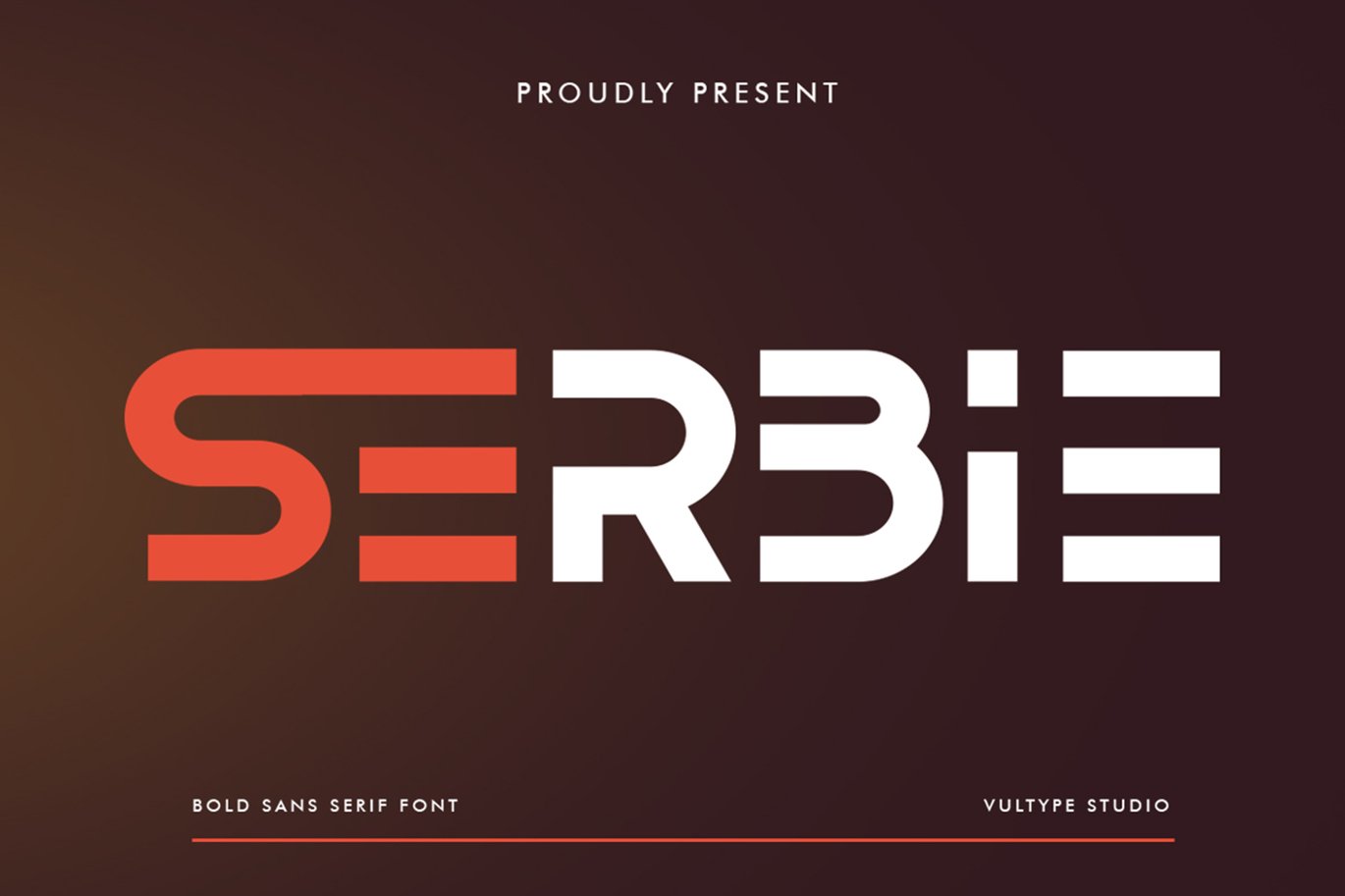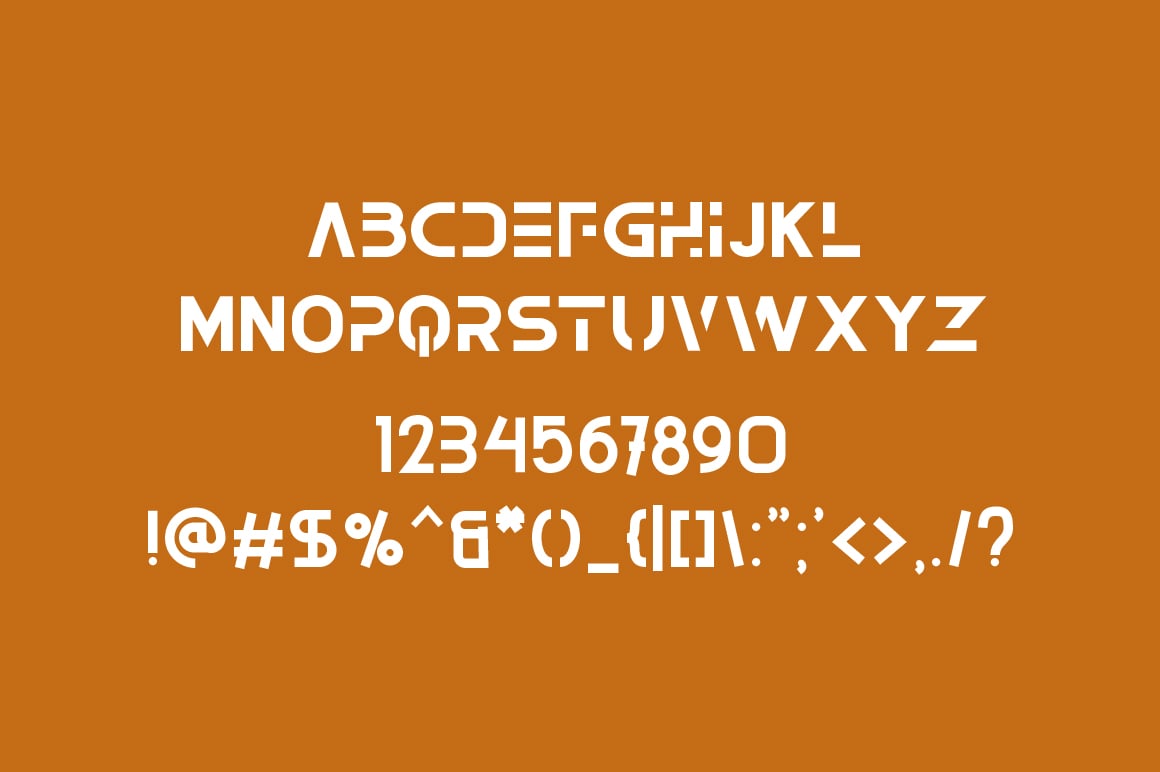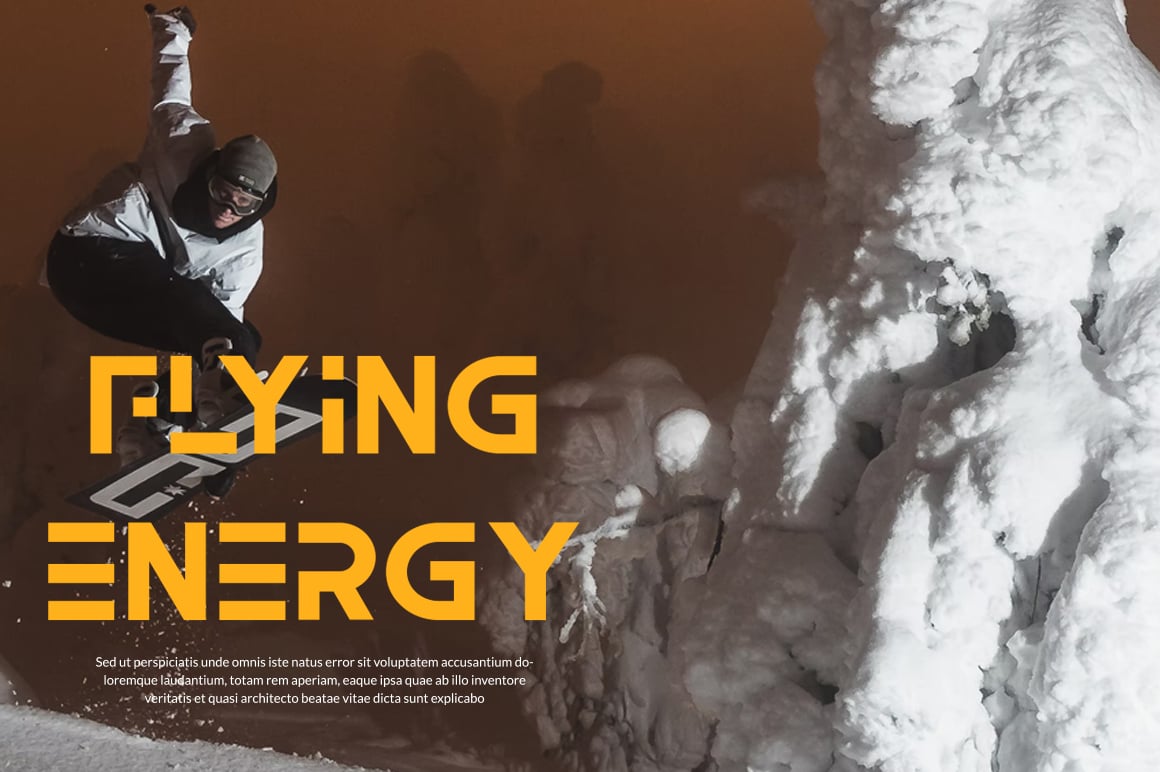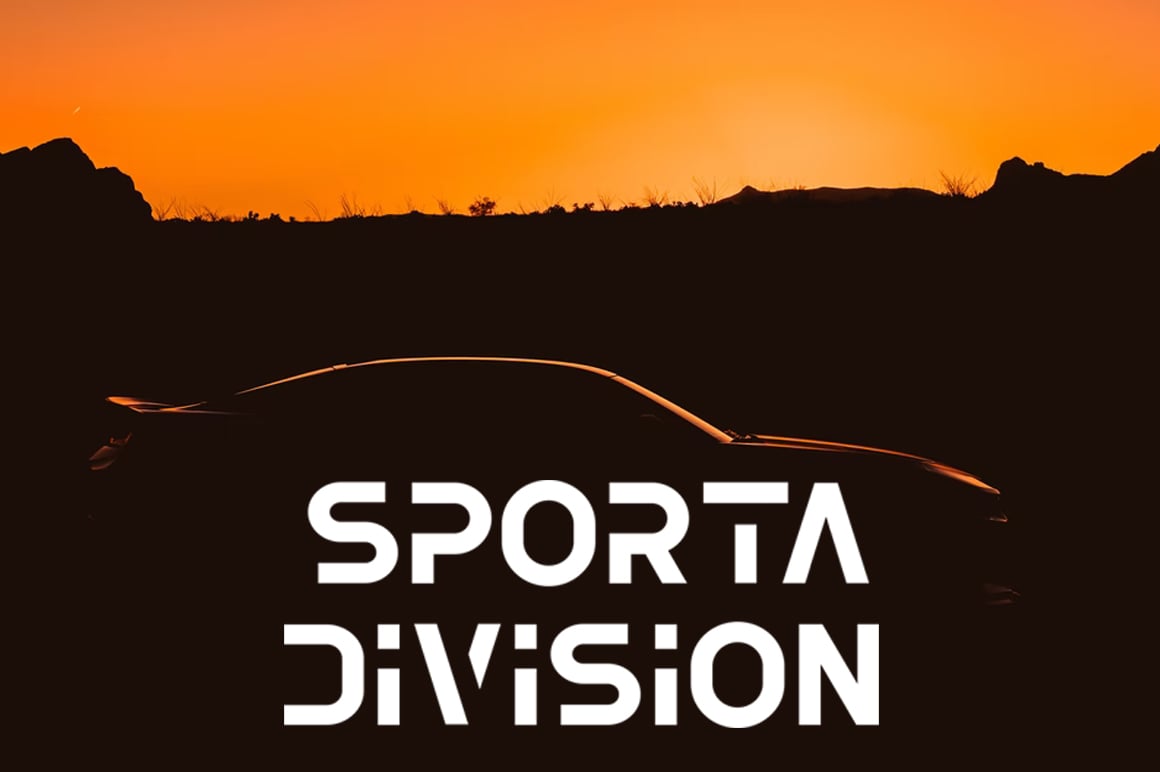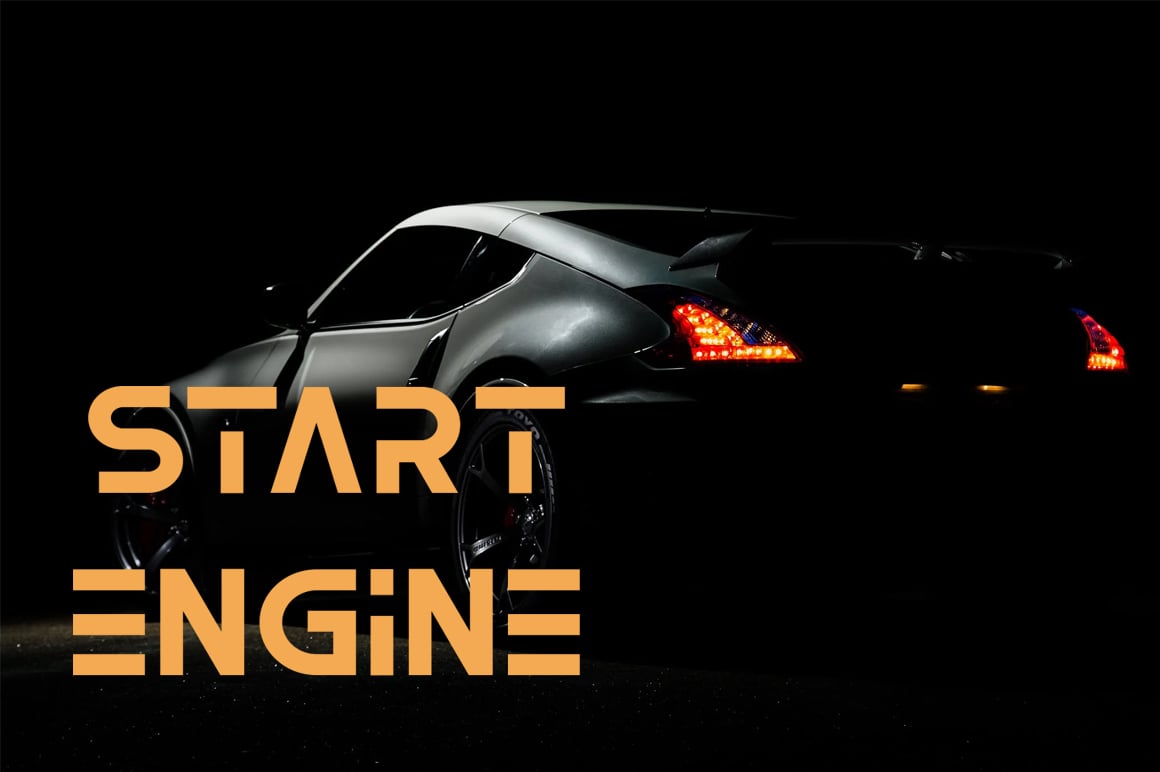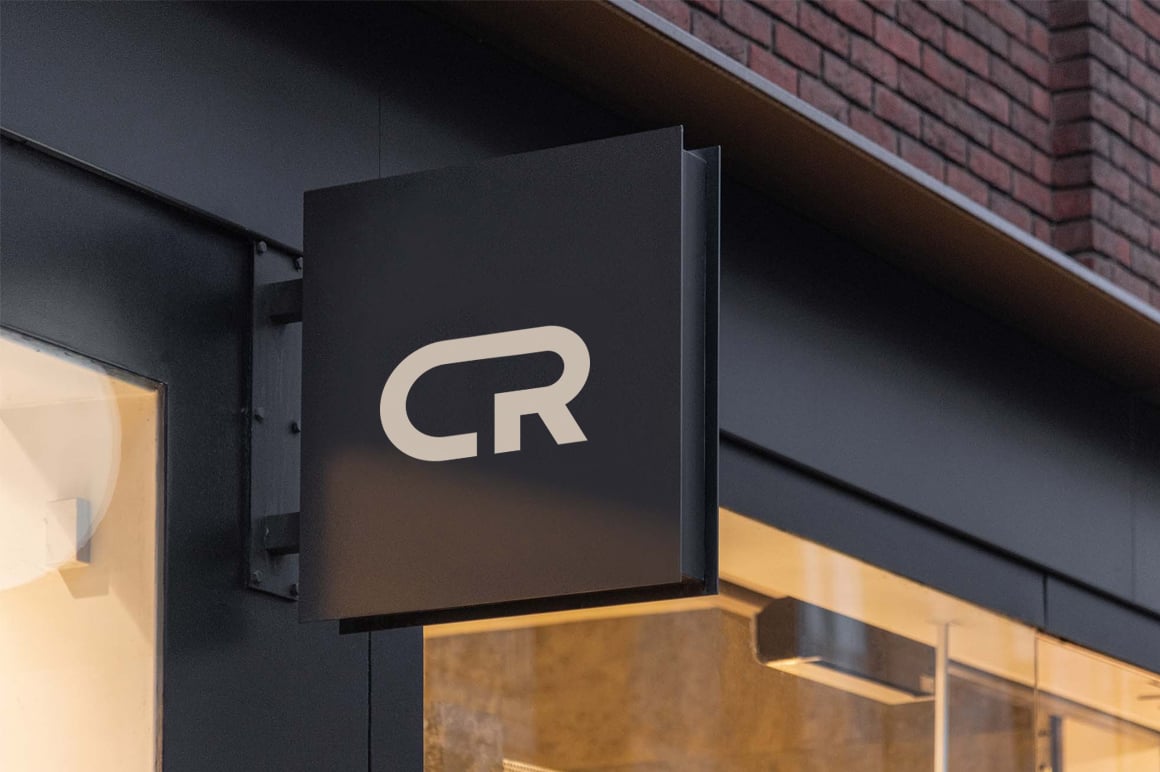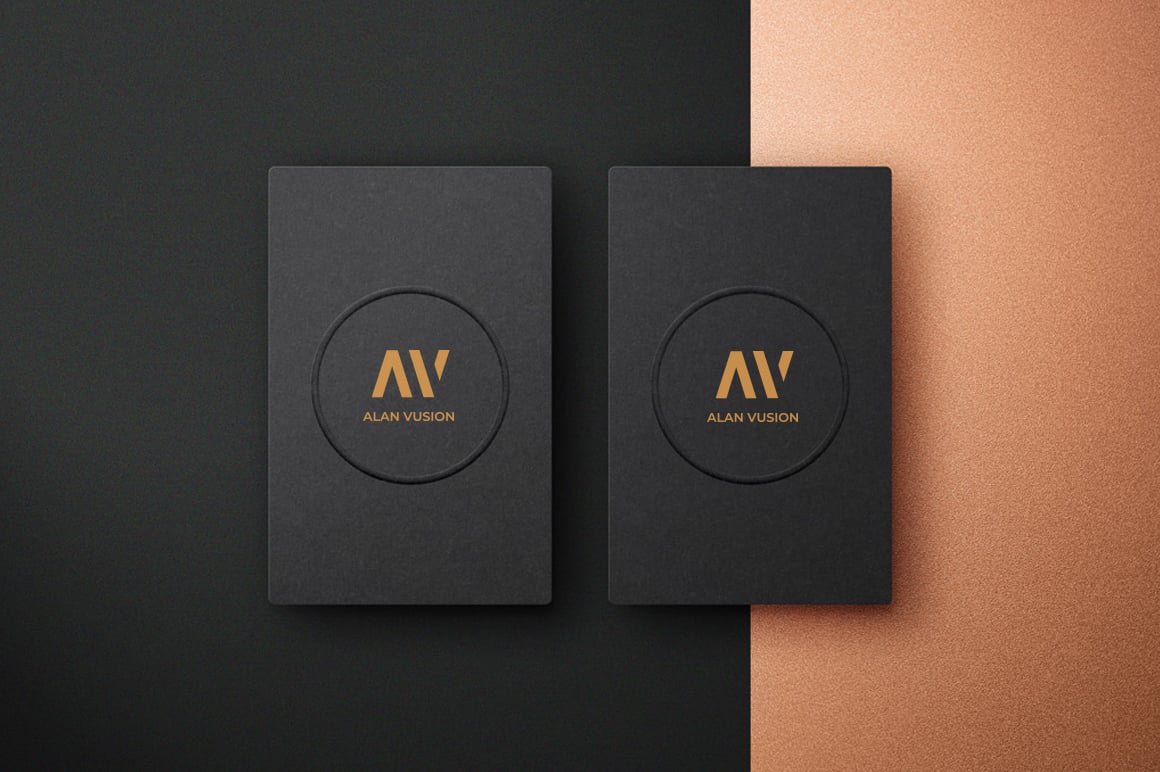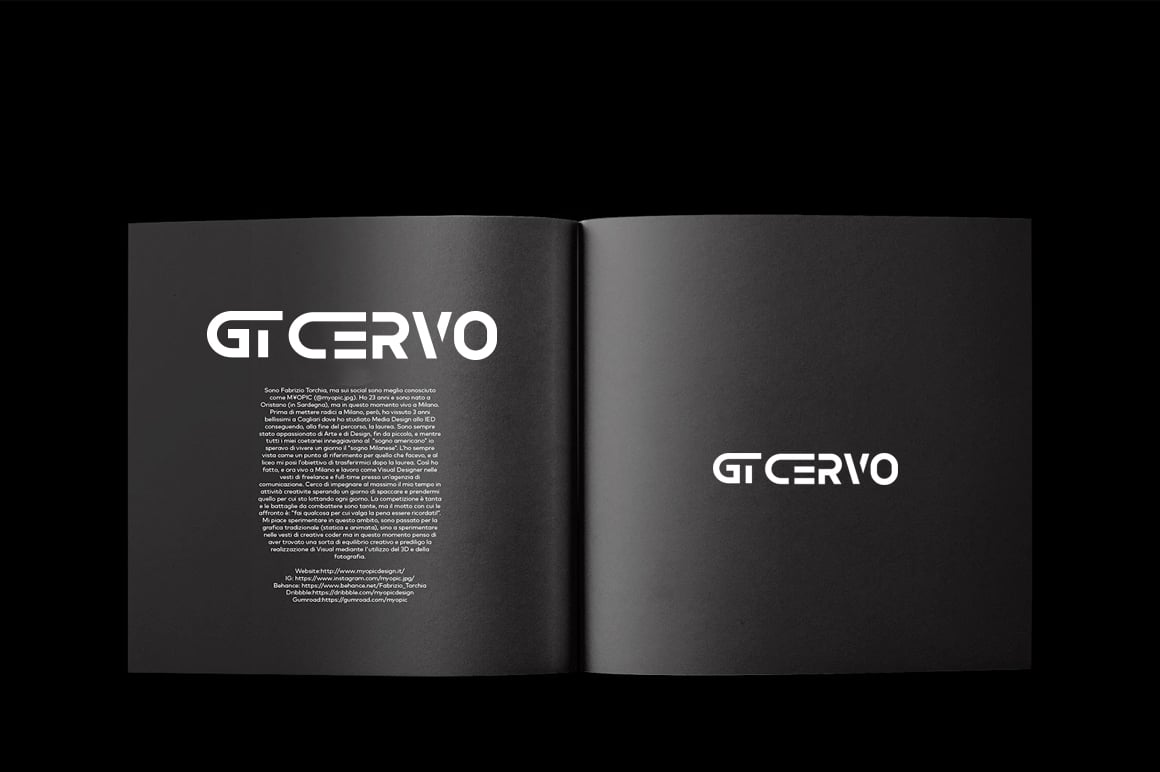
Serbie – Logo Font
Serbie is a sans based font with unique lowercase that will make your design looks futuristic and modern. You can use this font for any purpose, especially to make logotype.